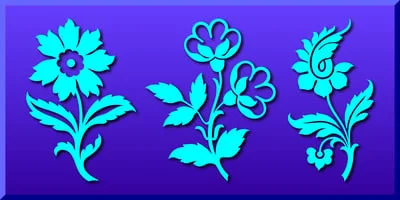
Fancy Flowers Font
Fancy Flowers Font is perfect for elegant florist shop branding, luxury garden center communications, sophisticated wedding invitation designs, upscale botanical product packaging, refined perfume labeling, graceful spa and wellness materials, delicate jewelry boutique signage, romantic restaurant menus, distinguished floral arrangement portfolios, and enchanting feminine lifestyle marketing campaigns.
What makes Fancy Flowers Font so exciting is its extraordinary ability to capture the delicate beauty and sophisticated elegance of the world's most exquisite blooms through gracefully ornate letterforms that seem crafted from silk petals and blessed with the same natural artistry that creates perfect roses and rare orchids. This font embodies the essence of floral sophistication and botanical luxury, featuring intricately detailed characters that appear to have grown organically from gardens where master horticulturists cultivate the most precious flowers with devoted care and artistic vision. The elegantly flourished letter shapes create an atmosphere of refined beauty and natural luxury, making every word feel like it carries the fragrance of the finest gardens and the promise of discovering floral arrangements that transform ordinary spaces into extraordinary expressions of natural artistry.
The Fancy Flowers Font family includes Light, Regular, Medium, Bold, and Ornate variations, along with botanical symbols and floral decorative elements. Each style maintains the font's distinctive floral character while offering versatility for different botanical applications, from delicate flower care instructions to bold celebration headlines that announce the arrival of seasonal blooms and horticultural masterpieces.
This exquisite typeface brings authentic botanical luxury aesthetics to contemporary design projects. The Fancy Flowers Font offers designers an invaluable resource for creating memorable brand identities that communicate elegance, natural beauty, and floral sophistication. Whether you're developing luxury florist branding, designing botanical lifestyle materials, or creating elegant garden communications, this font delivers unmatched floral charm and botanical credibility.
The masterfully crafted letterforms in Fancy Flowers Font feature flowing curves and delicate flourishes that mirror the organic beauty of nature's most sophisticated blooms and the artistic arrangement principles that transform individual flowers into breathtaking compositions. Each character has been designed to maintain perfect readability while expressing the refined elegance and natural artistry that define the world's finest floral creations. The font's distinctive personality makes it ideal for applications requiring genuine botanical authority and floral luxury appeal.
Floral and botanical professionals appreciate how Fancy Flowers Font effortlessly communicates elegance, natural beauty, and horticultural expertise while appealing to discerning clients seeking authentic floral experiences that celebrate both the inherent beauty of flowers and the artistic skill required to arrange them into memorable expressions of natural luxury. The comprehensive character set includes floral symbols, botanical decorations, garden elements, and extensive international language support, ensuring global compatibility while preserving its distinctive fancy flowers identity. This makes it an invaluable resource for florists, garden centers, botanical organizations, and any business seeking typography that embodies the timeless appeal of floral beauty, the sophisticated artistry of botanical arrangement, and the kind of natural luxury that transforms special occasions into unforgettable celebrations through the careful selection and artistic presentation of flowers that speak the universal language of beauty, love, and the eternal human appreciation for the delicate perfection that blooms in nature's most precious gardens.